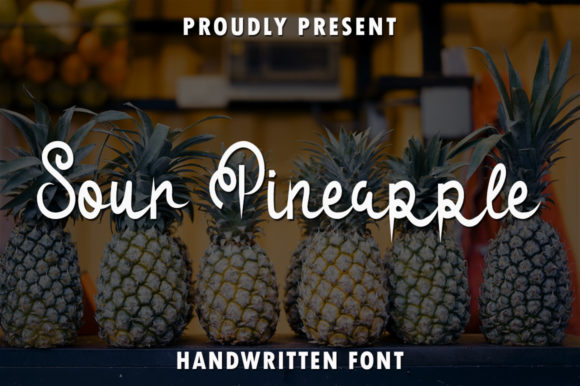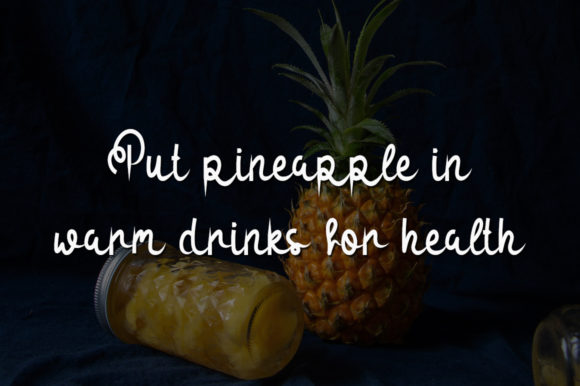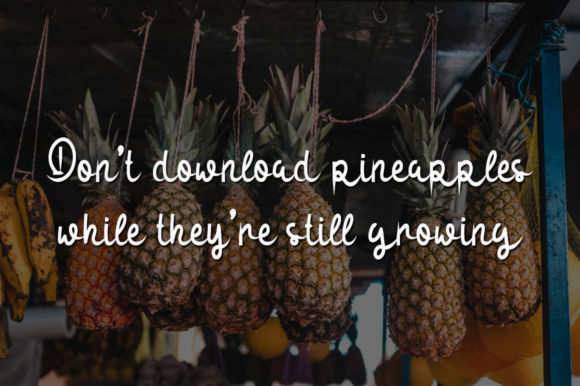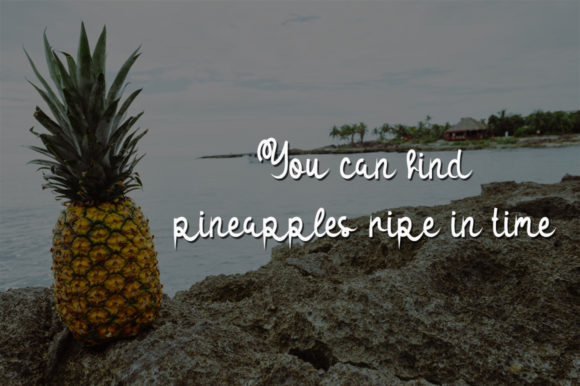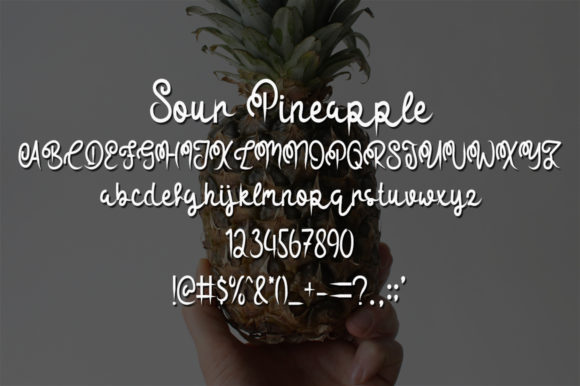
Sour Pineapple Font
About Sour Pineapple Font
Sour Pineapple is a radiant and sweet handwritten font that adds a delightful and charming touch to your designs. With its flexible and well-rounded letters, this font captures attention and exudes a sense of playfulness and joy.
The beauty of Sour Pineapple lies in its lively strokes and whimsical details. Each letter is crafted with care, showcasing its unique personality and style. The font’s radiant and sweet appearance makes it suitable for a wide range of design projects, from greeting cards to posters, packaging, and more.
When used in designs, Sour Pineapple brings a sense of cheerfulness and positivity. The playful strokes and lively curves create an inviting and vibrant atmosphere, making your designs truly captivating. Whether you’re creating birthday cards, invitations, or promotional materials, this font adds a touch of radiance and charm to your creations.
Beyond greetings, Sour Pineapple can be used to create ravishing designs for various purposes. Its versatile style allows you to explore different creative possibilities, such as social media graphics, branding materials, merchandise, and more. The font’s lively and sweet look adds a burst of energy to your designs, making them visually appealing and memorable.
The versatility of Sour Pineapple extends to both casual and festive designs. Its flexible and well-rounded nature can be used to create eye-catching branding materials, such as logos, packaging, and labels, where a vibrant and inviting look is desired. Additionally, it can also be used in more informal designs, such as social media posts, blog headers, and party decorations, to add a touch of whimsy and charm.
The legibility and readability of Sour Pineapple make it easy to incorporate into your designs. The font’s well-crafted letters ensure that your message is conveyed clearly and beautifully, regardless of the context. Whether you’re working on digital or print projects, Sour Pineapple offers a versatile and joyful option to enhance the visual appeal of your designs.
In summary, Sour Pineapple is a radiant and sweet handwritten font that brings a delightful and charming touch to your designs. Its flexible and well-rounded letters make it a wonderful choice for various design projects, including greeting cards, posters, branding materials, and more. Fall in love with its incredibly versatile style and use it to create ravishing and visually appealing designs that spread joy and positivity.